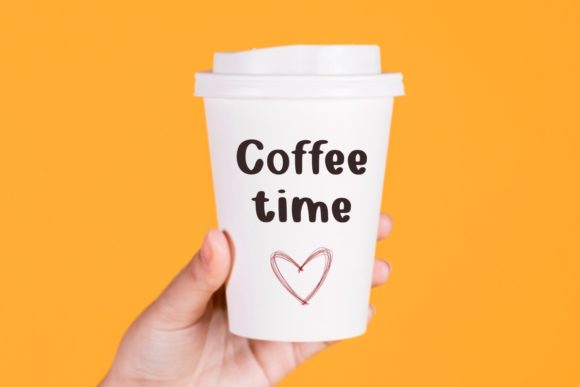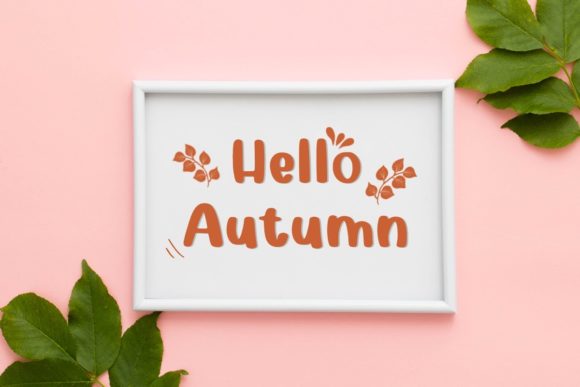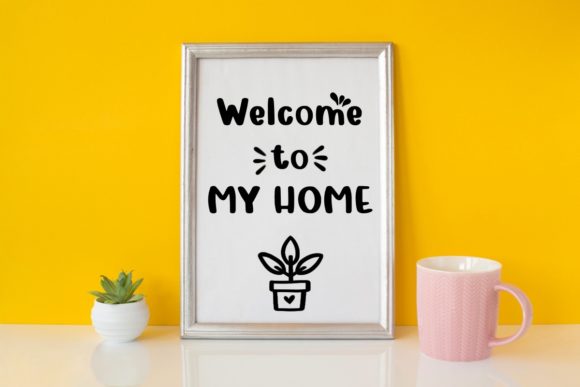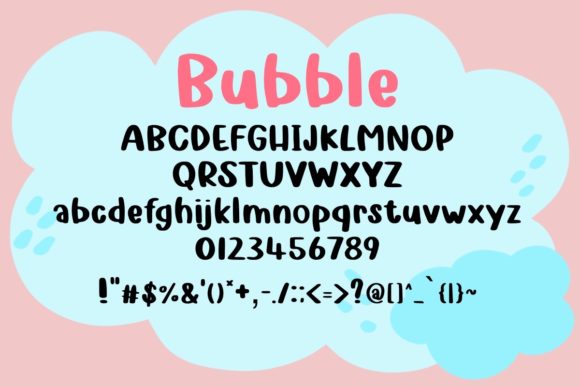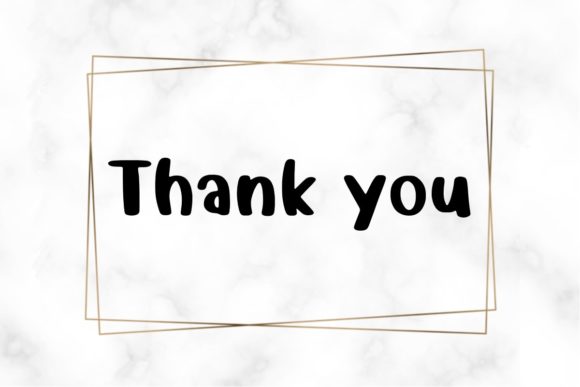
The Joy of Hand-Drawn Typography: Discovering the Magic of Bubble Font
Have you ever sat at your desk, staring blankly at a blank sheet of paper, waiting for that spark of creativity to strike? It’s a moment we’ve all been there – the one where you’re searching for that perfect font to bring your DIY project to life. And then, like a breath of fresh air, it hits you: the combination of a brush pen and pencil that creates a unique, hand-drawn look that’s simply irresistible.
Enter Bubble Font, a stunning display font that’s born from this exact pairing. Its endearing and authentic vibe makes it perfect for adding a personal touch to any project, from invitations and greeting cards to wall art and signs. And for designers, Bubble Font is a valuable addition to their toolkit – a chance to add a touch of whimsy and personality to their work.
With its effortless charm and versatility, Bubble Font is sure to become your go-to font for all your creative needs. In this article, we’ll dive into the world of this gorgeous display font and explore its many uses and benefits.
Bubble Font Key Features
- Character Set: Includes a wide range of characters, including uppercase and lowercase letters, numbers, and special symbols, making it suitable for various applications.
- Unique Characteristics: The font’s distinctive bubble-like shapes and rounded edges create a playful, yet elegant appearance, making it suitable for creative and design-intensive projects.
- Font Weight and Style: Offers a range of font weights, from light to bold, and various styles, including regular, italic, and bold italic, allowing for flexibility in design applications.
Bubble Font Review
Overall, I have mixed feelings about the Bubble Font. Let’s dive into what works well and what doesn’t.
- Fun and playful vibe: The Bubble Font is perfect for adding a touch of whimsy to your designs.
- Customization options: You can easily adjust the font size, color, and even add some extra flair with the various bubble effects.
- Easy to use: Even with limited design experience, I found the Bubble Font to be intuitive and simple to work with.
- Limited flexibility: While the Bubble Font is great for casual, playful designs, it may not be the best choice for more formal or professional projects.
- Overused design element: I’ve seen the Bubble Font used in many designs, which can make it feel less unique or special.
- May not work well in small sizes: When scaled down, the Bubble Font can become difficult to read, which may limit its use in certain contexts.
The Bubble Font is a fun and playful addition to any design, but it’s essential to use it judiciously and in the right context. With some careful consideration, you can create some truly unique and eye-catching designs with this font.